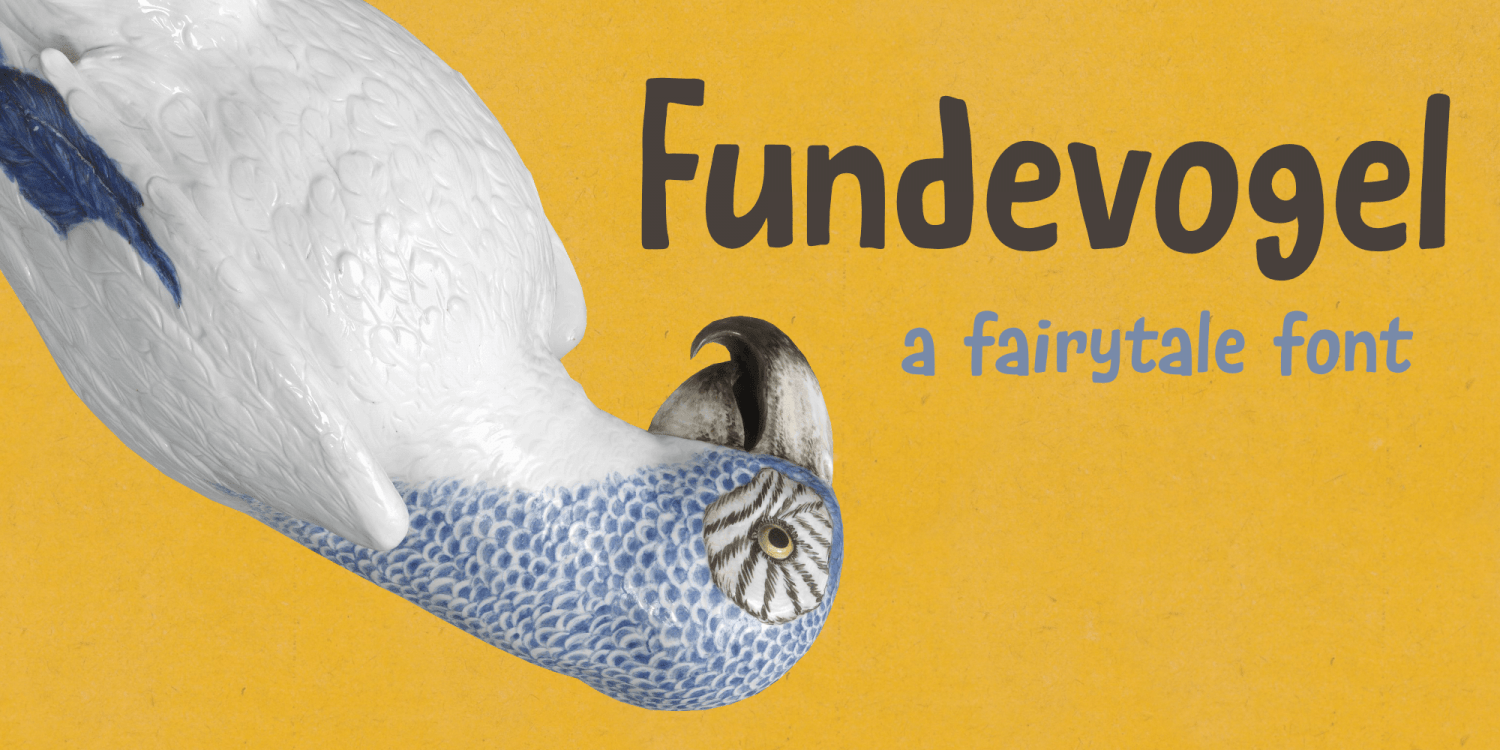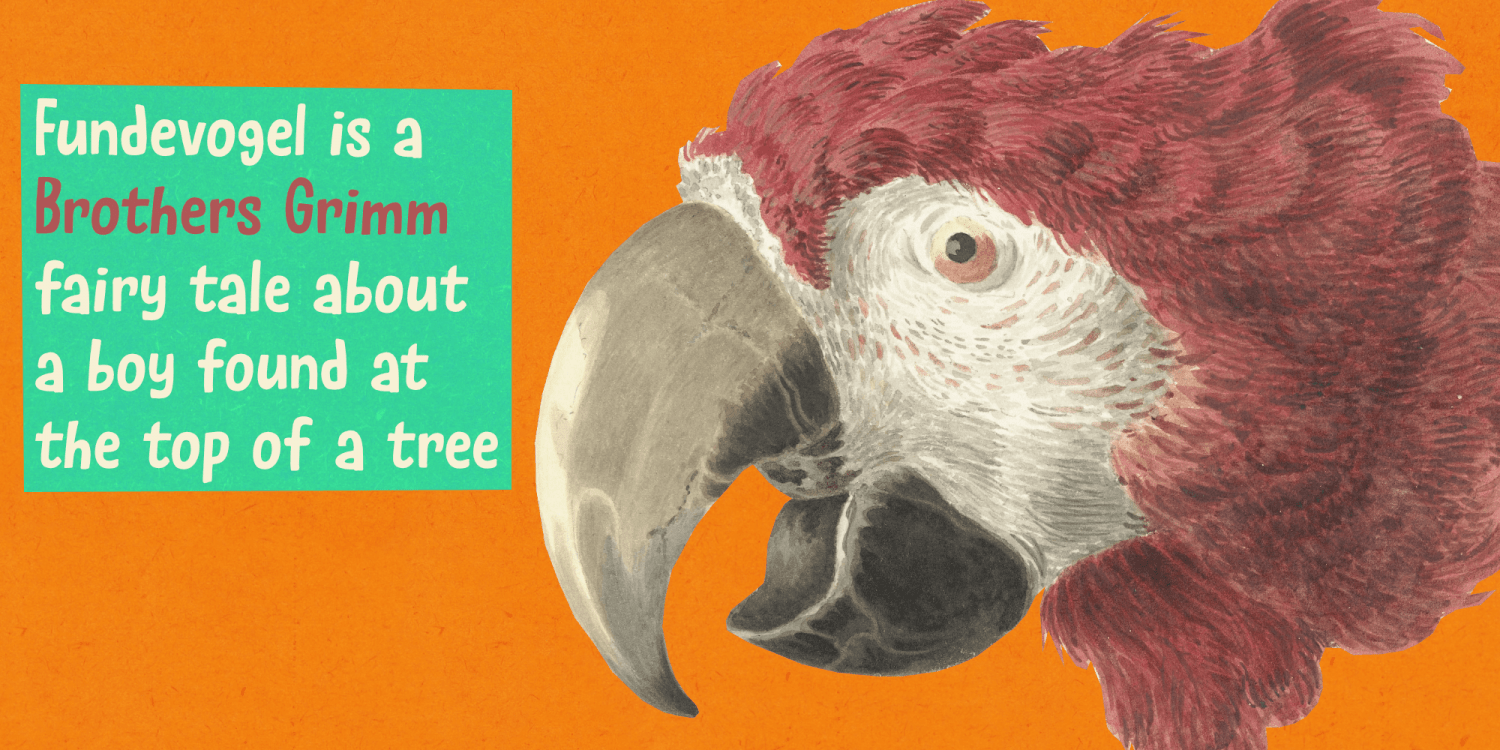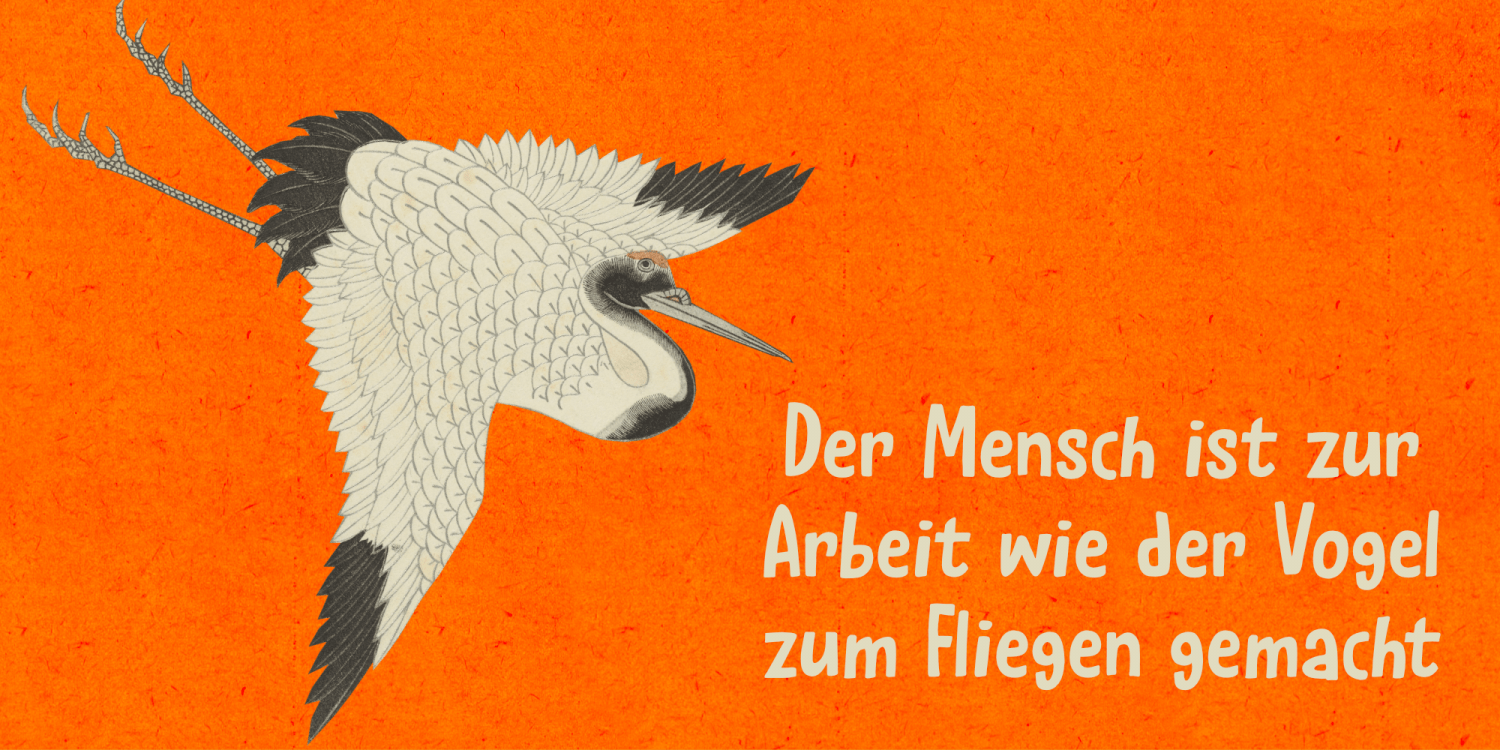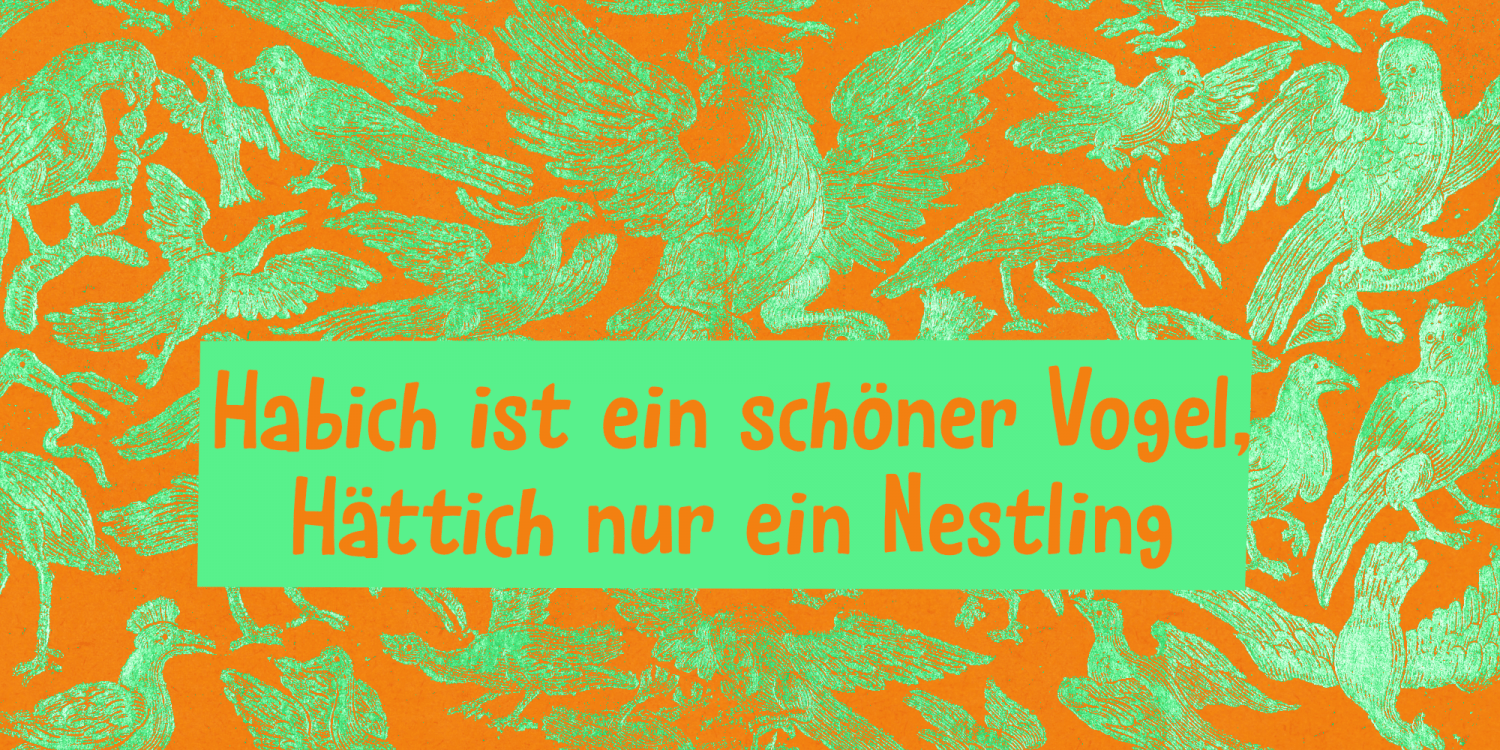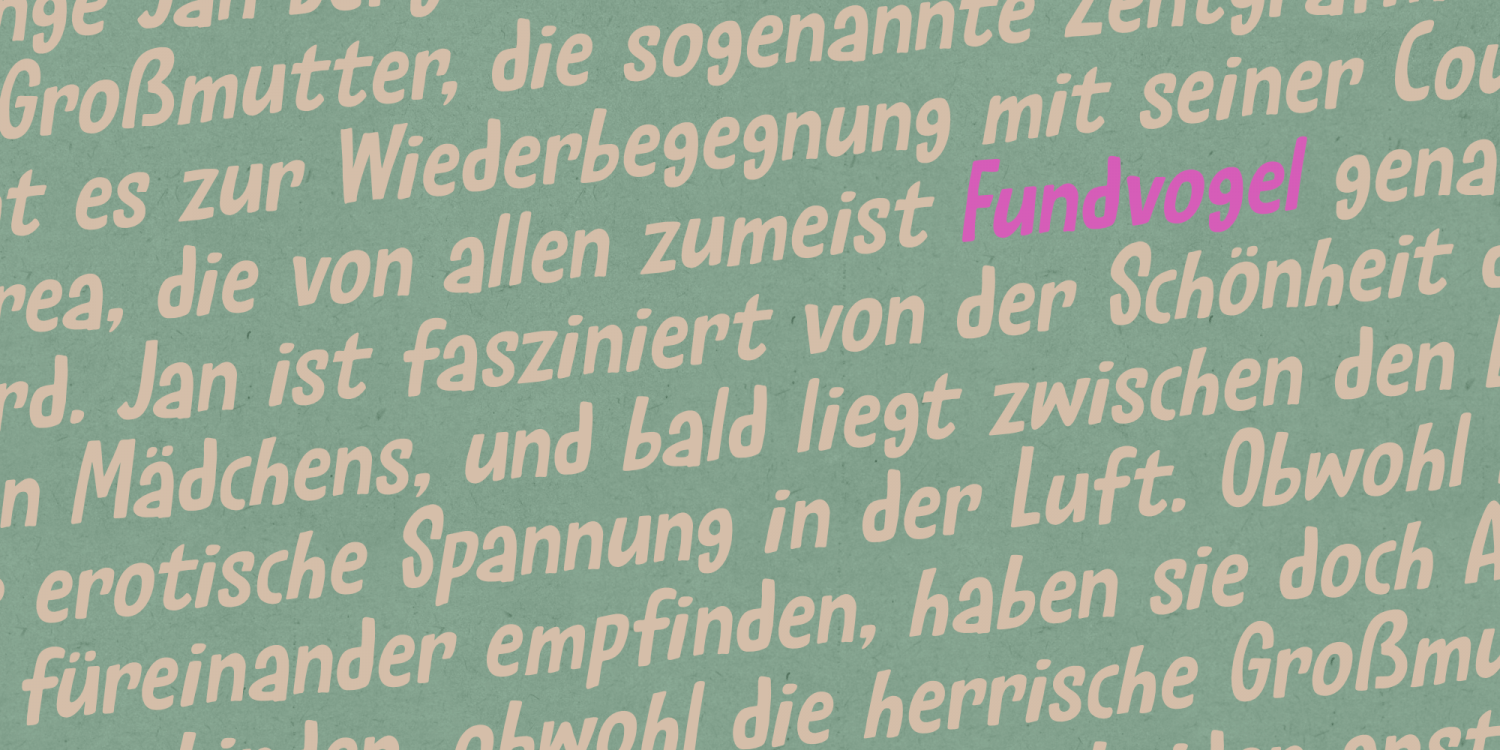
Fundevogel
Fundevogel is a Brothers Grimm fairytale about a boy who was found in a tree. The story, of course, has all the obligatory characters in it: a fair maiden, a wicked cook, an old forester and lots of shapeshifting. And, yes, a happy end!
Fundevogel font is a handmade fairytale font. It comes with extensive language support and all the cuteness you could wish for.